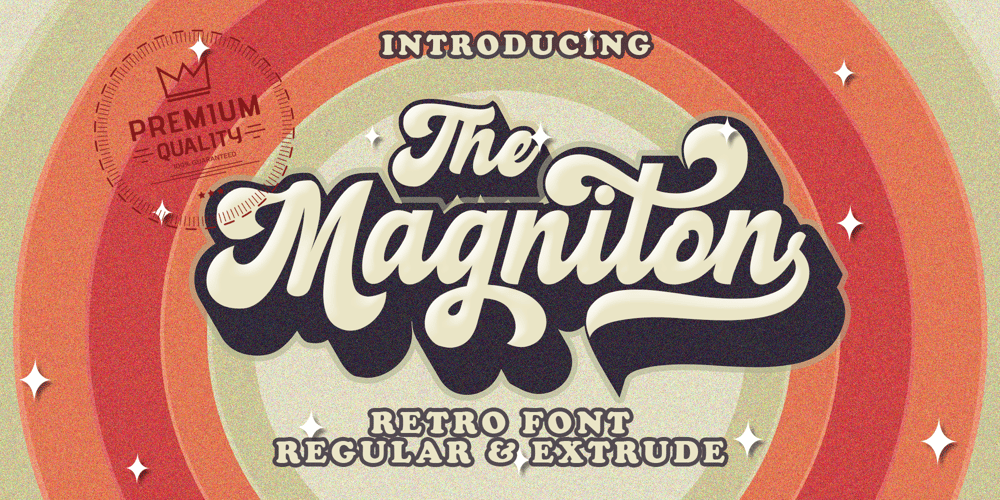
Magniton Font Family was designed by Muhammad Mujibulloh and published by MJB Letters. Magniton contains 2 styles and family package options. Magniton is a bold retro font that has a very strong vintage character that adds a classic impression to every design, this font also has many OpenType features that provide many choices in design.Magniton is perfect for branding designs, packaging designs, poster designs, logotypes, social media posts, labels, watermarks, fashion design, photography, and more.Magniton Features: Uppercase and Lowercase Numerical and Punctuation Ligature, Swashes & Alternate PUA Encoded Multilingual Language Files Included: Works on PC & Mac Simple installations Accessible in Adobe Illustrator, Adobe Photoshop, Adobe InDesign, and even work on Microsoft Word. PUA Encoded Characters – Fully accessible without additional design software. Fonts include multilingual support for; Afrikaans, Albanian, Czech, Danish, Dutch, English, Estonian, Finnish, French, German, Hungarian, Italian, Latvian, Lithuanian, Norwegian, Polish, Portuguese, Slovak, Slovenian, Spanish, Swedish.